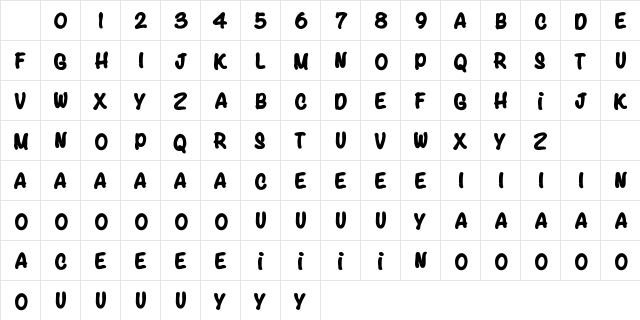
Ayesha Display is built around its visual character rather than neutral utility - its distinctive forms are designed to make an impression at display sizes.
Font Pairing: Pair with a clean neutral sans-serif for body copy to let Ayesha Display's character lead without overwhelming the composition.
Pro Tip: Use Ayesha Display exclusively at display sizes - it was designed to be seen, not read at length. Let a neutral companion handle body copy.